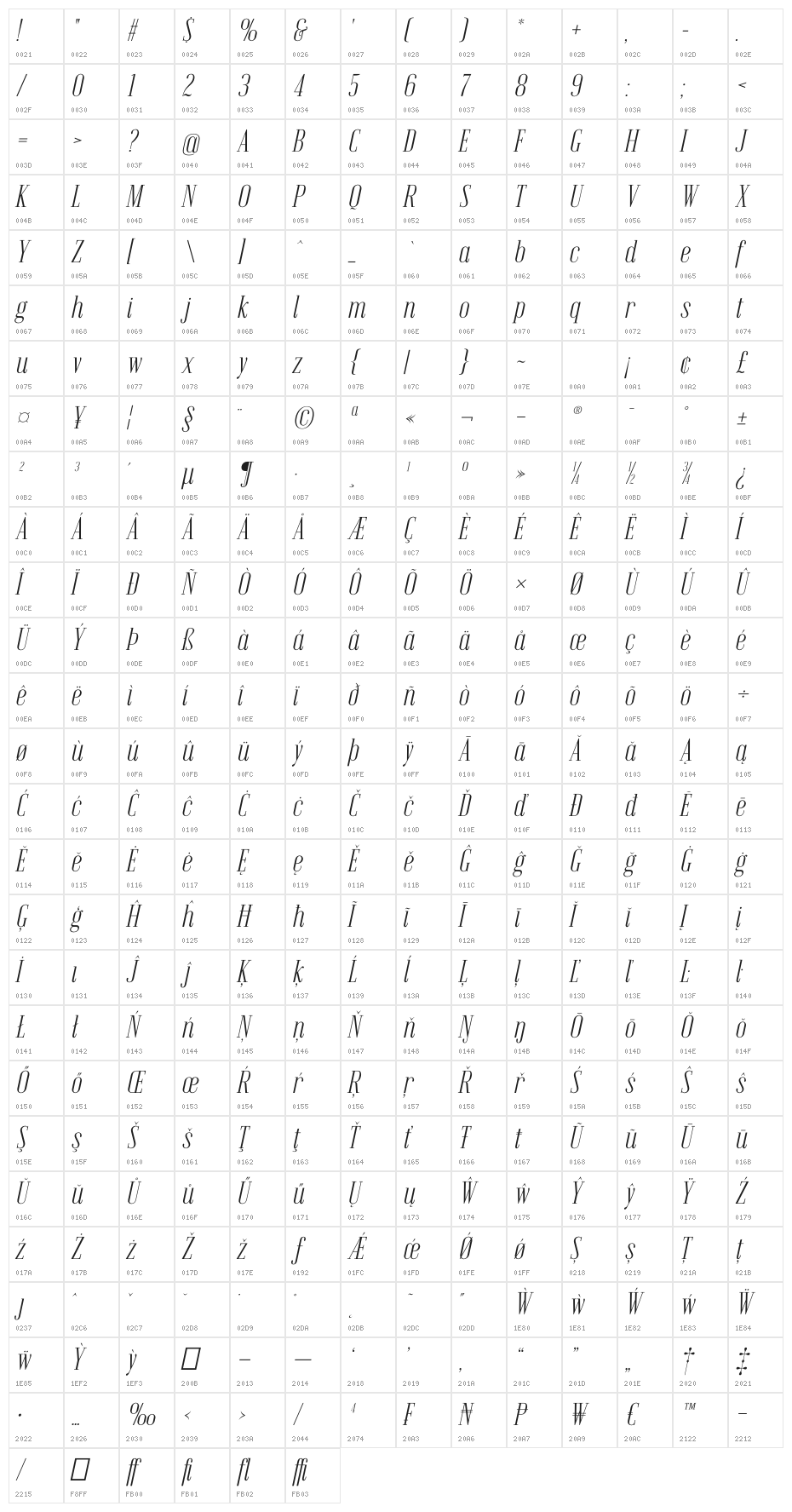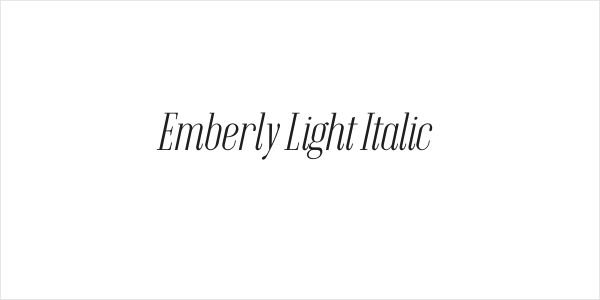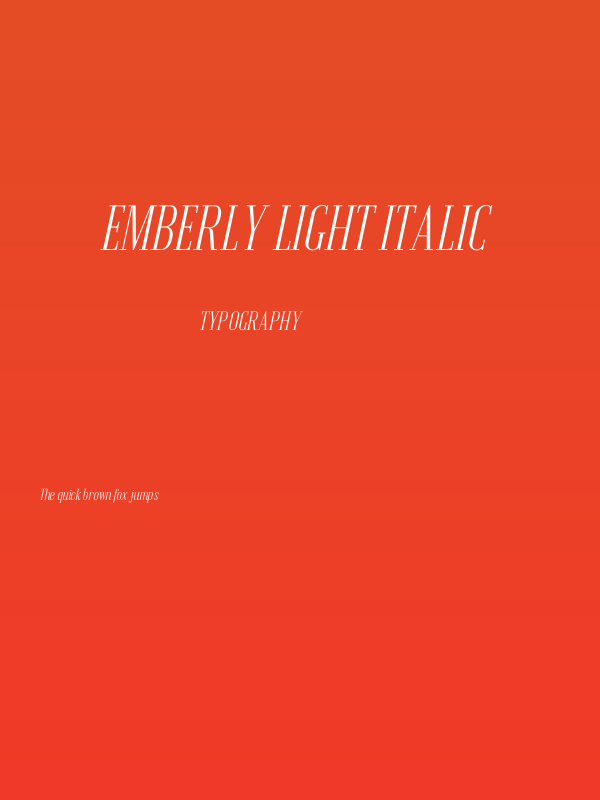
Emberly Light Italic Font
Emberly Light Italic Description
This elegant typeface features a refined and sophisticated design with a light weight and italic style. The characters are elongated and slightly condensed, giving them a graceful appearance. The strokes are thin, with a medium contrast between thick and thin lines, adding to the font's delicate aesthetic. The serifs are subtle and understated, enhancing the overall elegance without overpowering the design. This font is well-suited for projects that require a touch of class and sophistication, such as invitations, formal event programs, or luxury branding materials.
| Use Case | Invitations, Branding, Editorial |
| Proposed Projects | Ideal for wedding invitations, luxury branding, formal event programs, and elegant editorial design. |